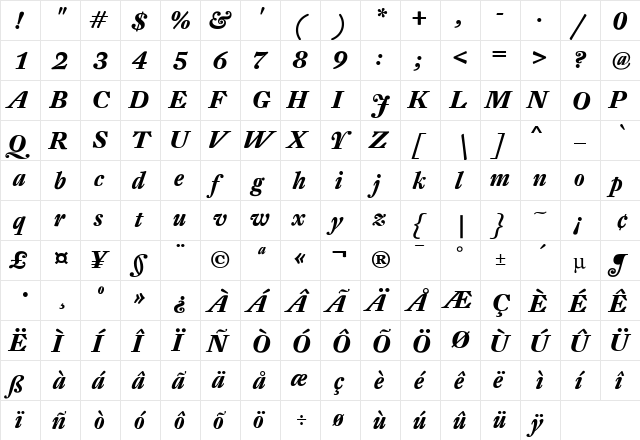
DTLFleischmannT ItalicBold
Design Context for DTLFleischmannT Typeface
DTLFleischmannT is a composed and adaptable typeface that performs quietly and consistently across a wide range of design contexts. Its italic angle brings a sense of urgency and motion to the letterforms. Its bold stroke weight gives it real presence on the page.
Pro Tip: Use DTLFleischmannT for emphasis, pull quotes, and subheadings where its slanted energy can add rhythm to the layout.